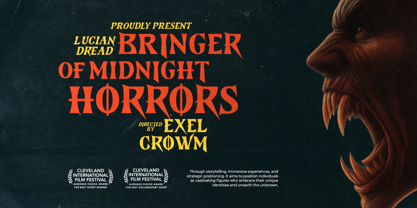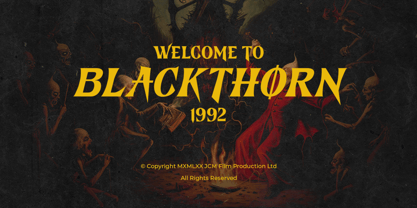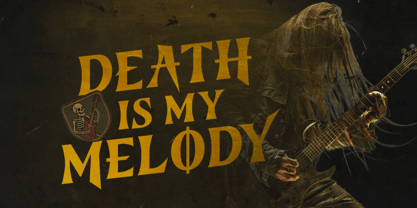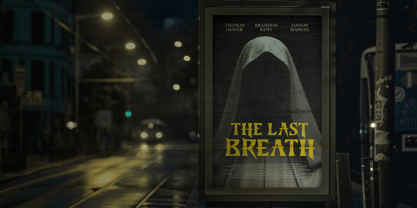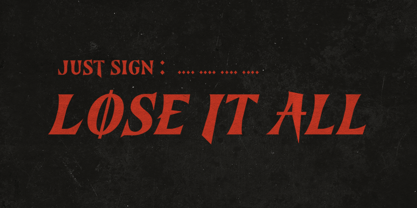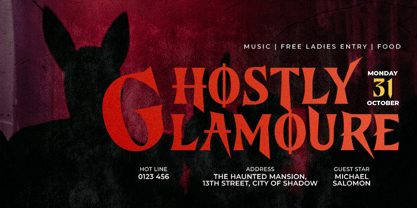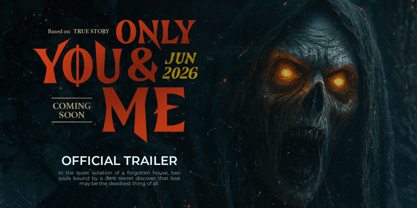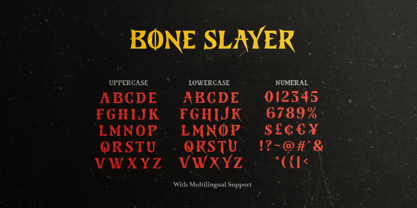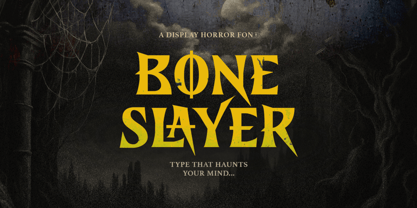
Bone Slayer
by Bale Type
The Bone Slayer Font Family was designed by Dzikrul Aulia and published by Bale Type. Bone Slayer contains 2 styles and family package options.
Bone Slayer is a serif based font with horror and creepy vibes. You can use this bold font for any purposes especially for project that needs strong and sharp appearance. Suitable for halloween poster, horror film poster, logotype and book cover. This font also have slant version that suitable for quotes and branding. Bone Slayer also support multi language!
Designers: Dzikrul Aulia
Publisher: Bale Type
Foundry: Bale Type
Design Owner: Bale Type